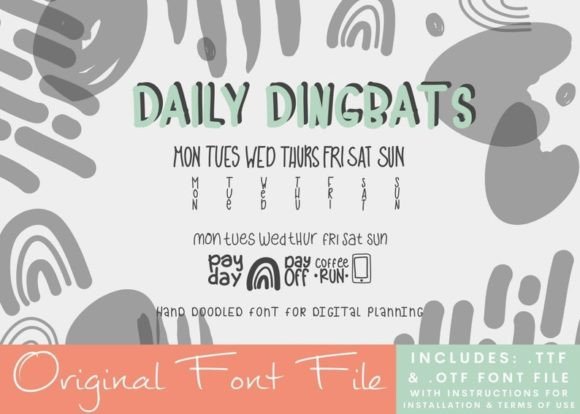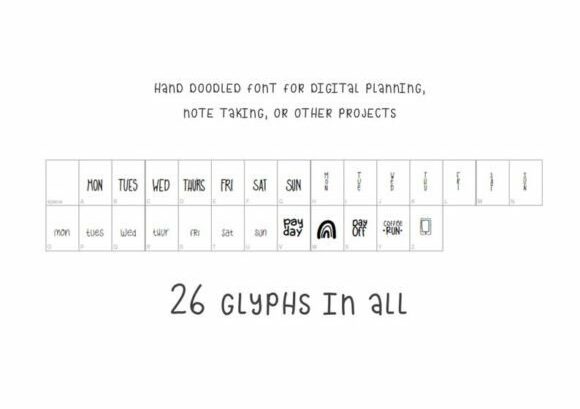
Weekday Dingbats Font
About Weekday Dingbats Font
Introducing Daily Dingbats, a delightful hand-doodled font specifically designed for digital planning. This font is perfect for adding a touch of whimsy and creativity to your undated planners. Whether you’re using it on your computer, laptop, tablet, or phone, Daily Dingbats will bring a fun and doodled look to your planning layouts.
Daily Dingbats is specifically tailored for labeling the days of the week in undated planners, allowing you to easily customize your planner according to your needs. The hand-doodled style of the font adds a charming and unique touch to your daily planning routine. With a variety of doodles representing each day, you can bring personality and character to your planner pages.
Not limited to digital planning, Daily Dingbats can also be used to create printed stickers for physical planners. Simply print out the doodles from Daily Dingbats and cut them into stickers to decorate your planner with delightful and hand-drawn elements.
Embrace the playful and whimsical style of Daily Dingbats to add a touch of creativity to your planning routine. Let your planner reflect your unique personality by incorporating these hand-doodled elements into your daily organization. Whether you’re a digital planner enthusiast or a lover of physical planners, Daily Dingbats offers endless possibilities to make your planning experience even more enjoyable.
So, get ready to infuse your planner with creativity and fun using Daily Dingbats. Whether you’re planning digitally or on paper, this font will bring a delightful and doodled look to your planner pages. Let your imagination soar as you label the days of the week with charming hand-drawn doodles, and enjoy the whimsy and uniqueness that Daily Dingbats brings to your planning journey.